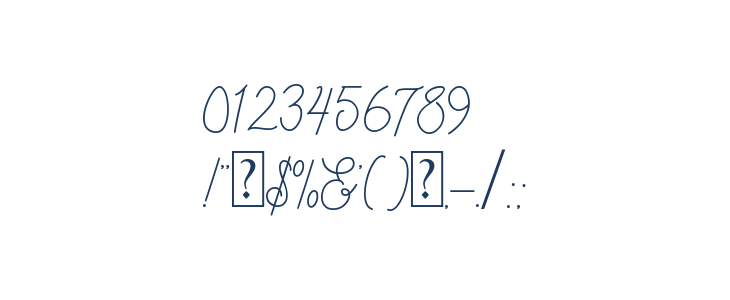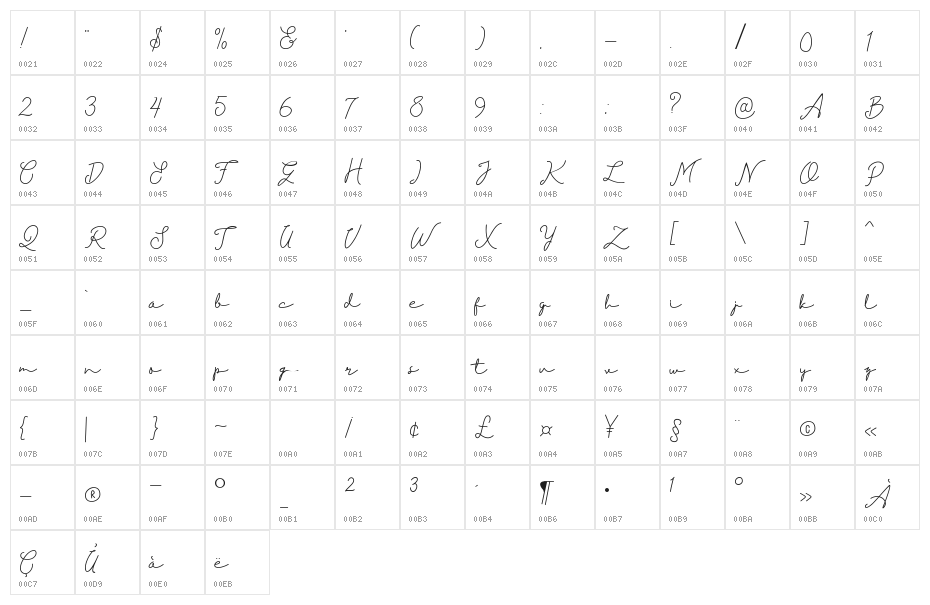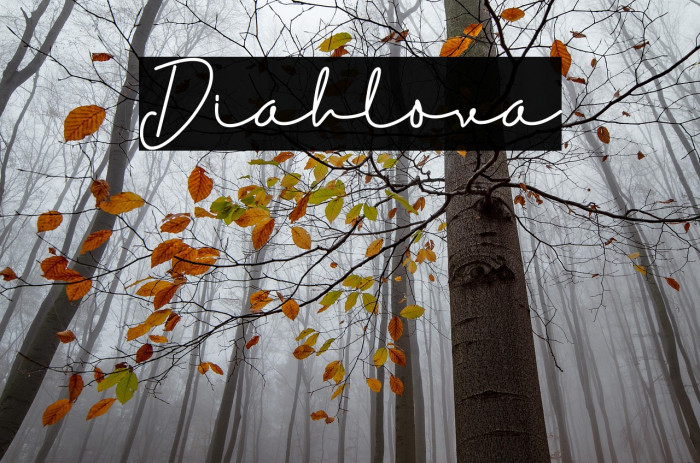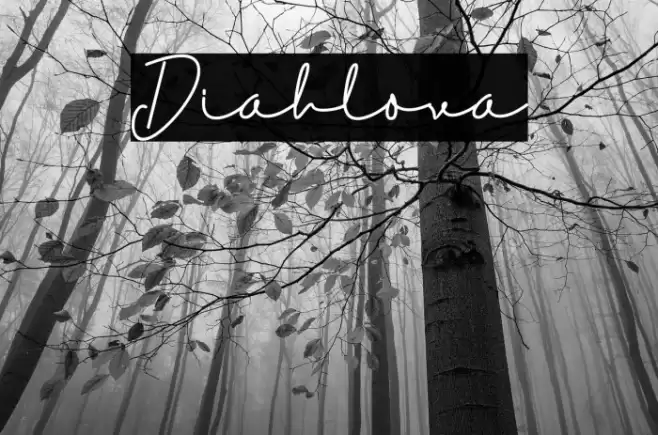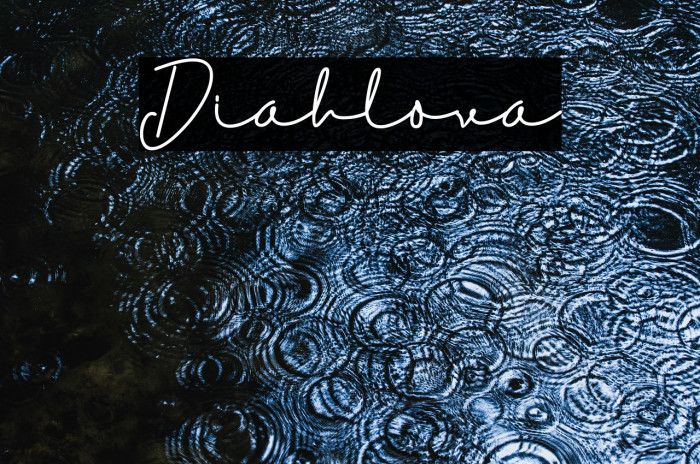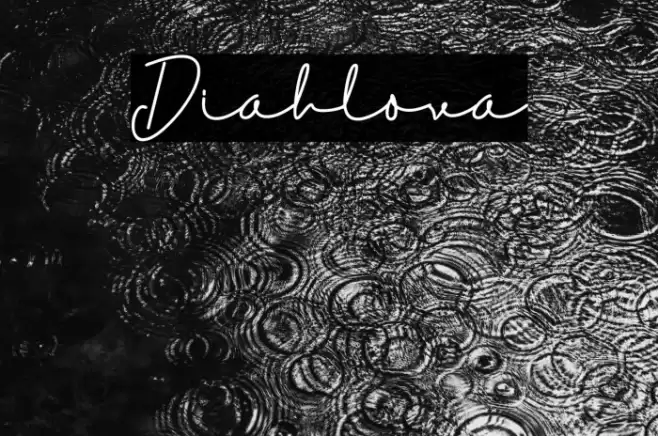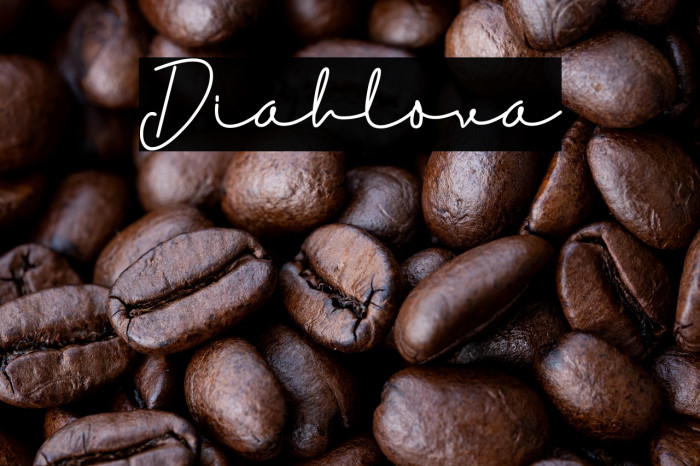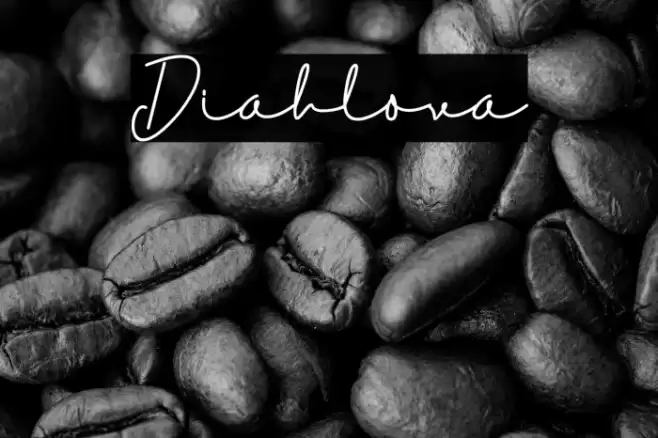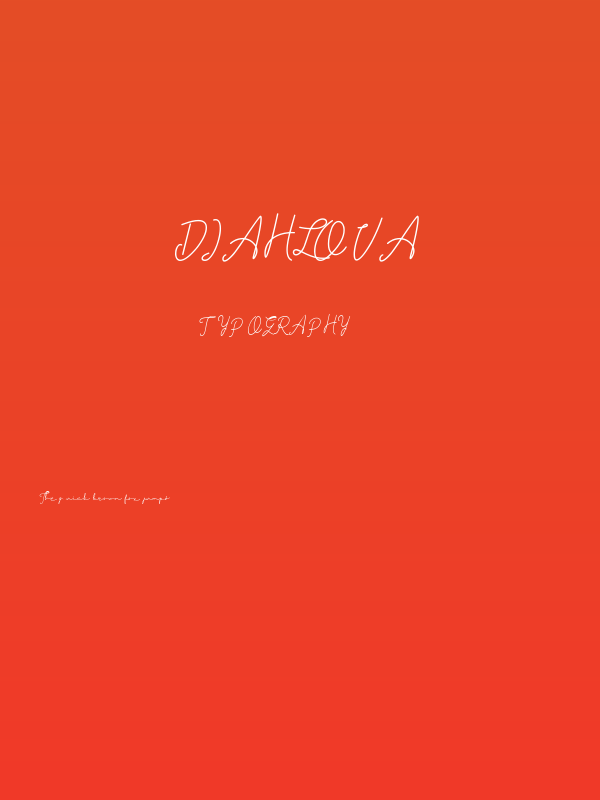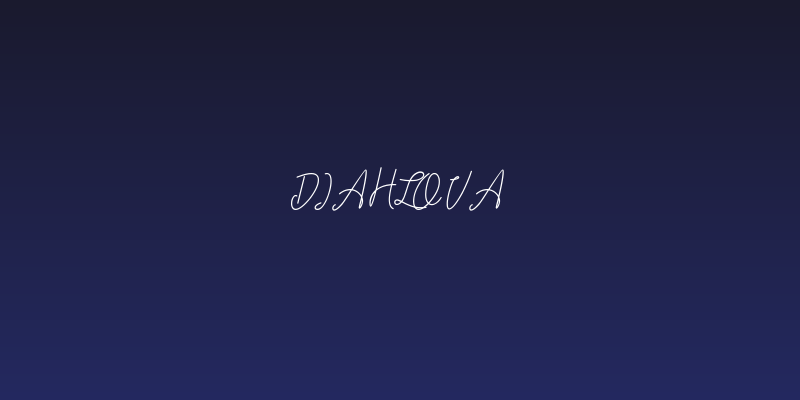
Diahlova Font
Diahlova Description
This elegant script font features a flowing, cursive style that exudes sophistication and grace. The characters are connected, creating a seamless and fluid appearance that is both stylish and legible. The uppercase letters are slightly more ornate, with gentle curves and loops that add a touch of flair, while the lowercase letters maintain a consistent, smooth flow. The numerals and special characters are designed to complement the overall script style, ensuring a cohesive look across all text. This font is perfect for projects that require a personal, handwritten touch, such as invitations, greeting cards, and branding materials.
| Use Case | Invitations, Branding, Personal stationery |
| Proposed Projects | Ideal for wedding invitations, personal stationery, branding, and elegant signage. |